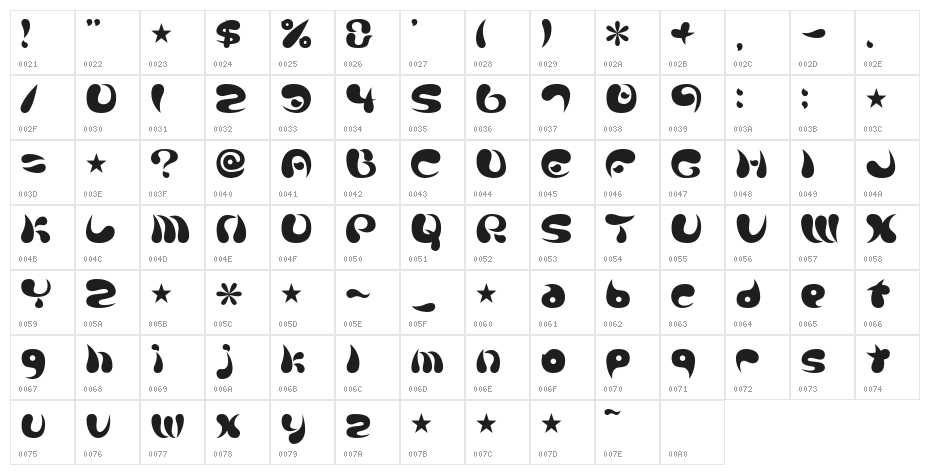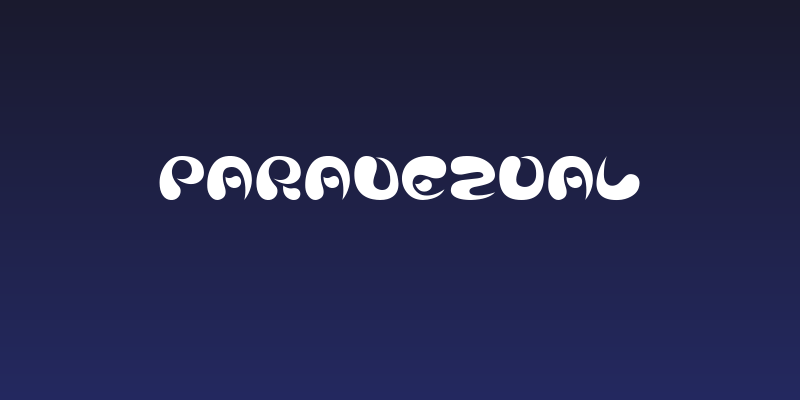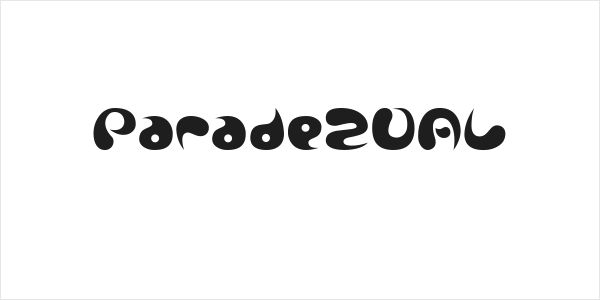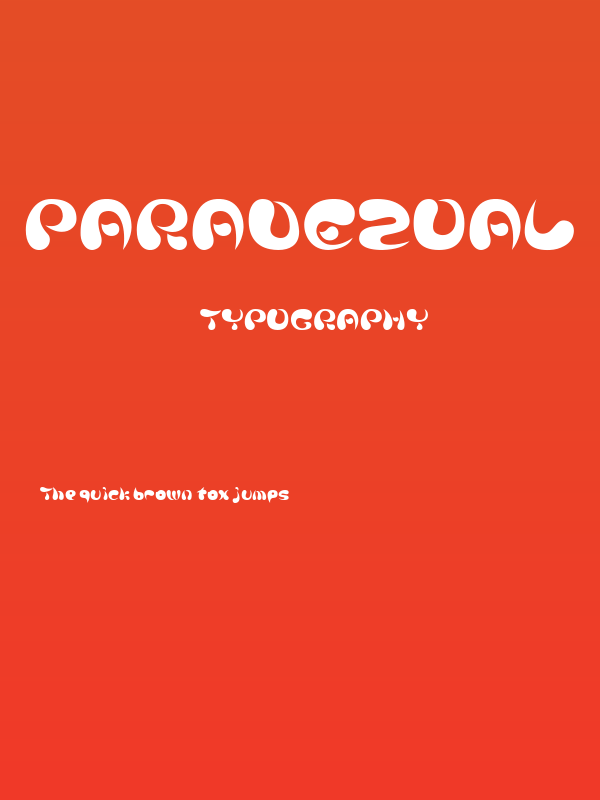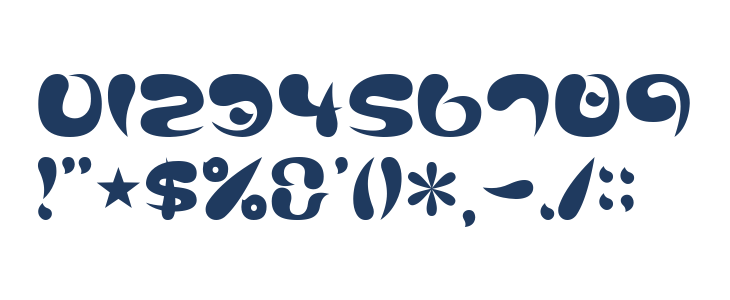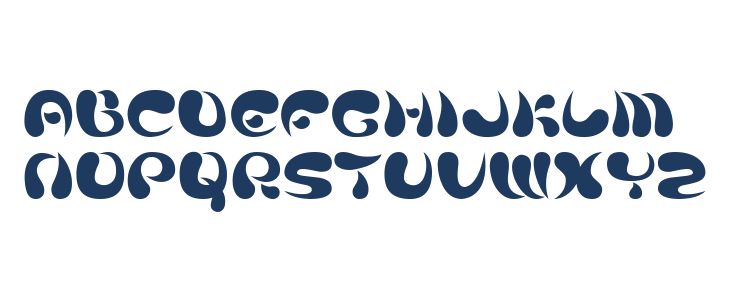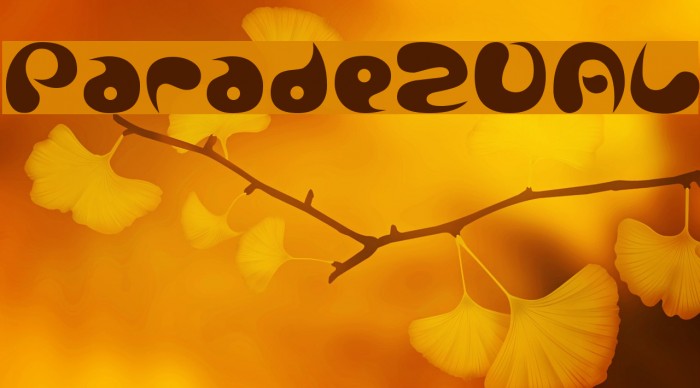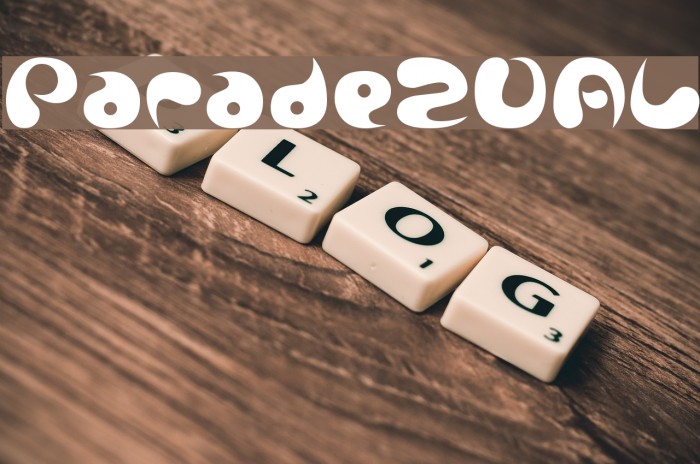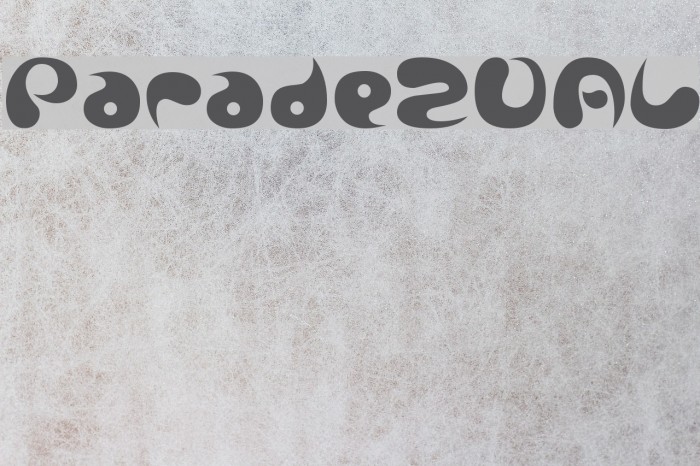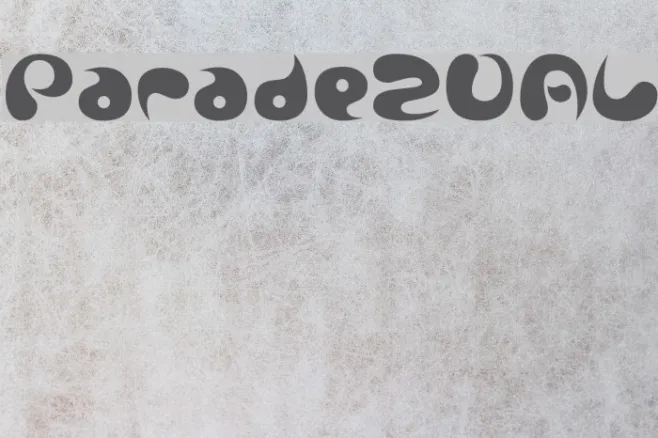
Parade20AL Font
Parade20AL Description
This font features a bold and playful design with a unique, organic feel. Each character is crafted with a sense of movement and fluidity, incorporating rounded edges and varying stroke thicknesses. The letters have a whimsical, almost abstract appearance, with some characters exhibiting a leaf-like or wave-like motif. The overall style is eye-catching and artistic, making it suitable for creative and unconventional projects. The font's distinctiveness is further enhanced by its high contrast, where thick and thin strokes are juxtaposed to create a dynamic visual impact. This font is perfect for projects that require a touch of creativity and flair.
| Proposed Projects | Ideal for creative branding, posters, album covers, and artistic projects. |